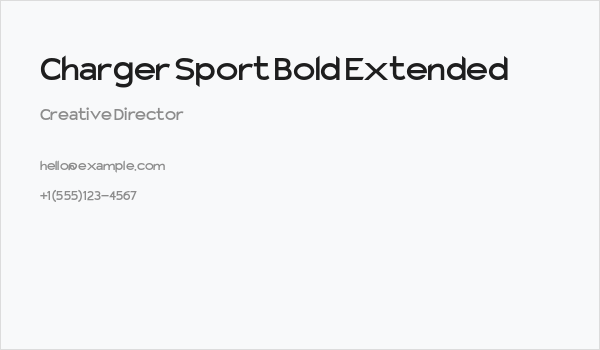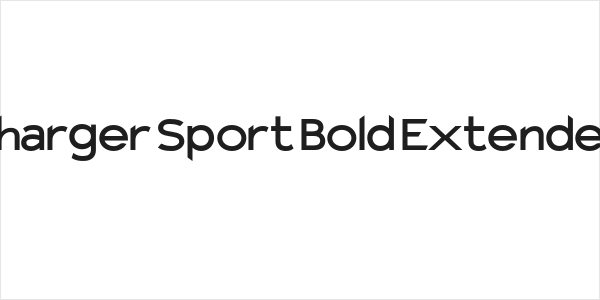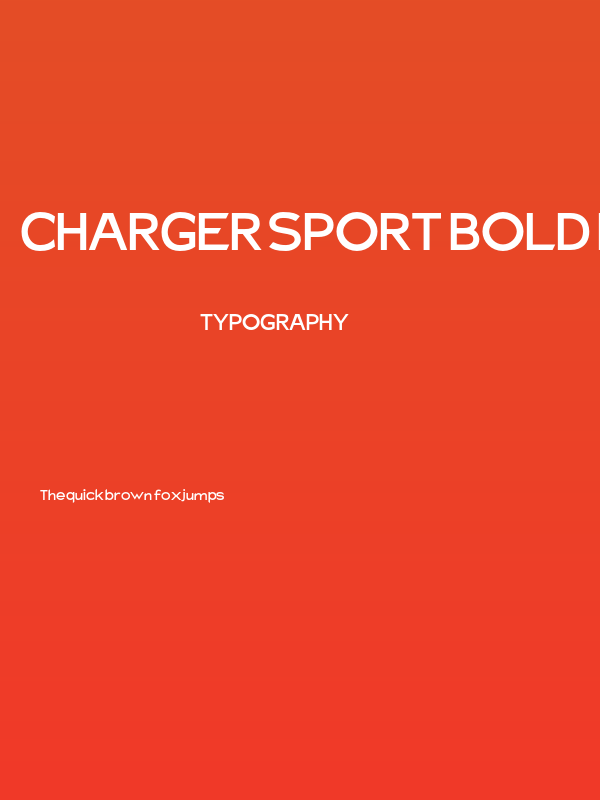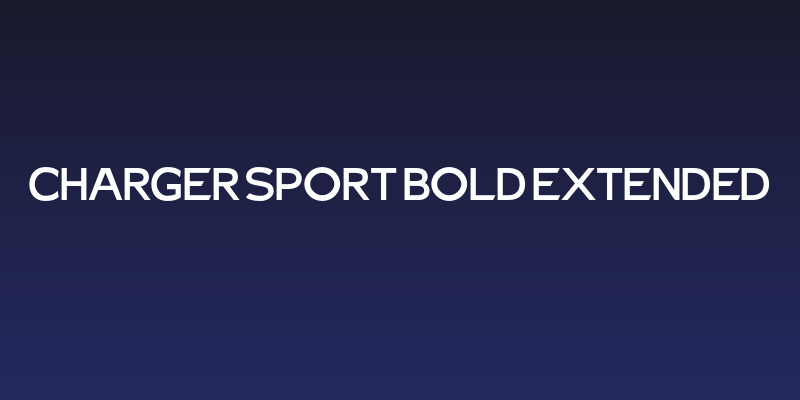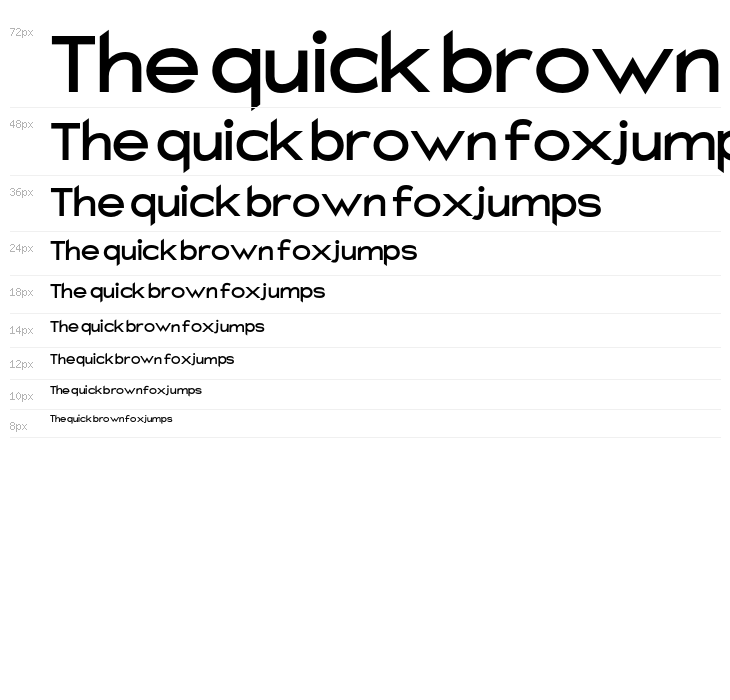
Charger Sport Bold Extended Font
Charger Sport Bold Extended Description
This font features a bold and extended style with a modern, sporty aesthetic. The uppercase and lowercase letters are designed with clean, geometric lines, giving them a sleek and contemporary appearance. The numbers and special characters maintain this consistent style, ensuring readability and visual appeal. The extended width of the characters adds a sense of dynamism and energy, making it suitable for projects that require a strong and impactful presence. The font's design is well-suited for digital and print media, offering versatility across various applications.
| Proposed Projects | Ideal for sports branding, dynamic posters, modern websites, and bold headlines. |